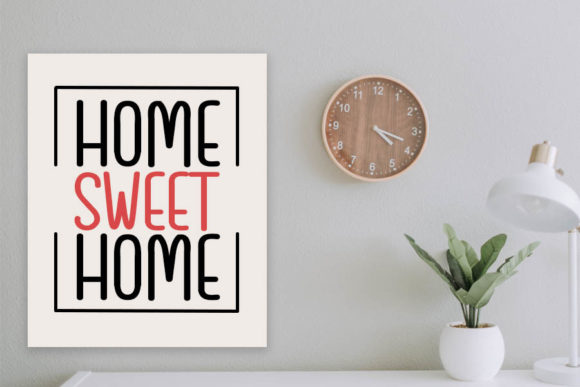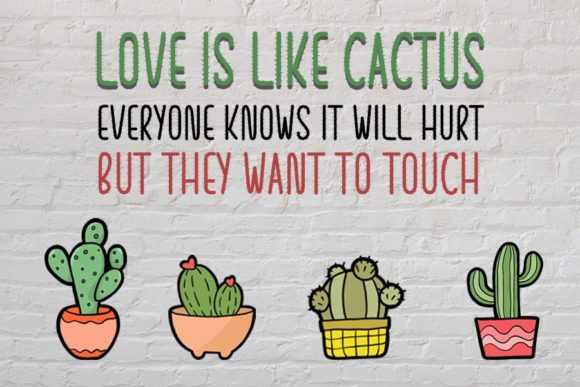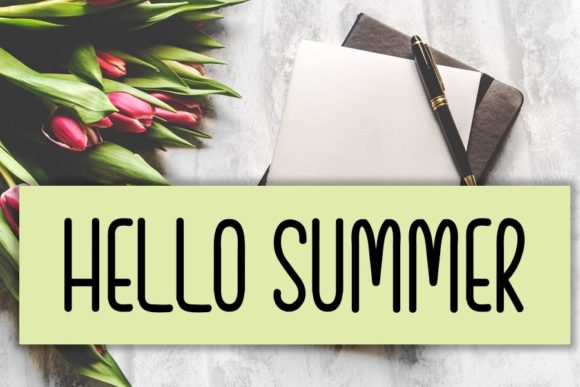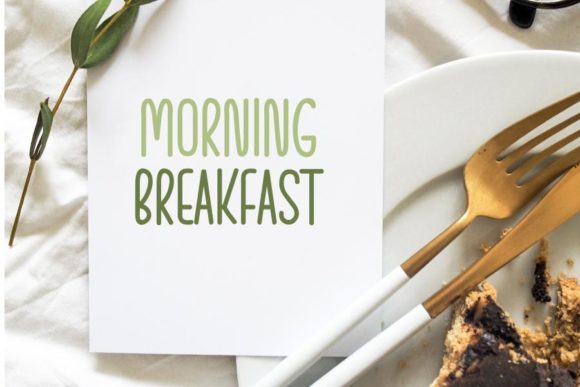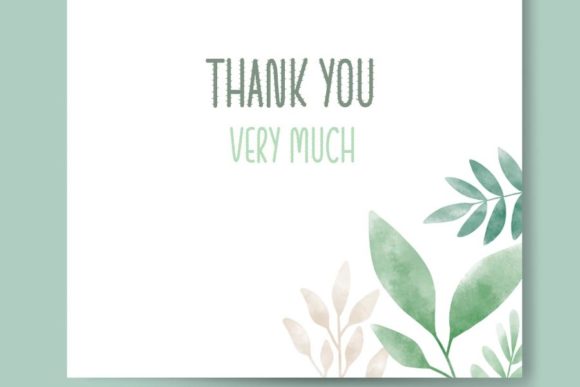
Introduction to Interior Kitchen Font
Have you ever been working on a creative project, pouring your heart and soul into a design, and then you see that perfect font that brings everything together? That’s exactly what happened to many designers when they discovered the Interior Kitchen Font. This adorable handwritten font has been a game-changer for creatives looking to add a personal touch to their designs.
Whether you’re working on a chalkboard quote, a teaching material, or simply a fun design project, Interior Kitchen Font is a valuable resource that can elevate your work to the next level. With its authentic look and high-quality design, this font is a must-have for any design enthusiast. Plus, it’s available for free download, making it an accessible resource for designers of all levels.
From adding a realistic feel to your designs to providing a transparent background for your creative projects, Interior Kitchen Font is a versatile tool that can help you achieve your design goals. In this article, we’ll dive deeper into the world of Interior Kitchen Font and explore its many benefits for designers.
Key Features of Interior Kitchen Font
- High-quality design resource suitable for various creative projects, including interior design, kitchen design, and home decor.
- Features a transparent background, making it easy to use in creative projects that require a clean and minimalist aesthetic.
- Available in 5 font styles, each with unique characteristics and design elements that can enhance the visual appeal of any project.
- Designed with a high level of detail and precision, ensuring that the font looks crisp and clear at resolutions up to 300 DPI.
- Perfect for use in a variety of design contexts, from print materials to digital displays, and can be scaled to fit any size or application.
Honest Review: Interior Kitchen Font
I recently came across the Interior Kitchen Font, and I’m excited to share my thoughts on this design resource. The font itself is quite unique, with a mix of modern and vintage elements that make it perfect for a creative project.
- High-quality design: The font is well-crafted and looks great on both light and dark backgrounds.
- Transparent background: This makes it easy to layer the font over images or other design elements.
- Limited character set: The font only includes a limited set of characters, which may not be suitable for longer text-based designs.
- Not suitable for body text: The font is more suited for headings and titles, as the characters may not be readable in smaller sizes.
Overall, I’m impressed with the Interior Kitchen Font. It’s a great addition to any designer’s toolkit, especially for creative projects that require a unique touch. However, be aware of its limitations, and use it accordingly.
Common Use Cases for Interior Kitchen Font
Use Interior Kitchen Font for designing restaurant menus, food blogs, and kitchen-themed websites.
It’s also ideal for creating high-quality designs for packaging, labels, and advertisements.